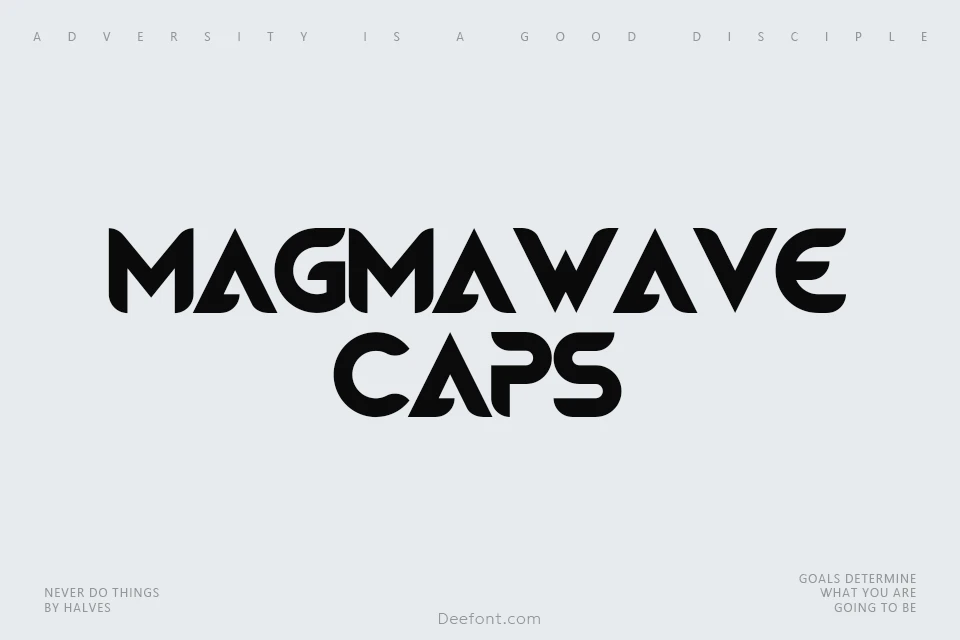
Magmawave Caps Font
Magmawave Caps is a distinctive digital OpenType font that reimagines Art Deco typography for the modern era. Created by designer Yanko Tsvetkov in 2012, this bold and dynamic typeface features geometric cuts and strong visual elements that create a powerful impact. The font exhibits thick, uniform strokes with unique angular designs across its 196 characters, making it particularly suitable for technology branding, sci-fi themed designs, video game titles, and modern posters. Its futuristic flair combined with Art Deco influences makes it an excellent choice for projects requiring a striking contemporary aesthetic.